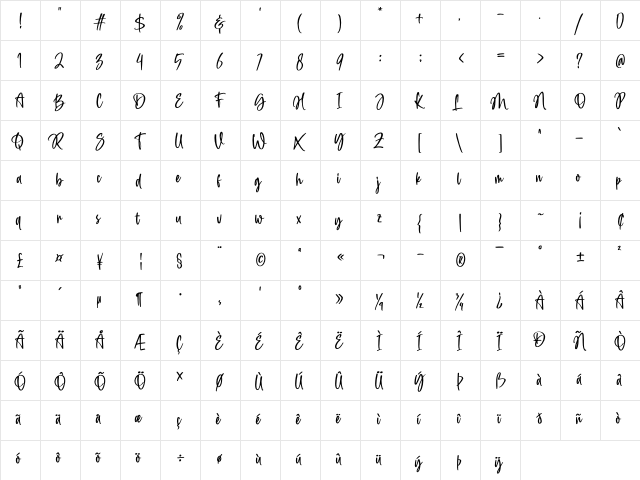
Daisy Girl Regular
Design Context for Daisy Girl Typeface
Daisy Girl is a composed and adaptable typeface that performs quietly and consistently across a wide range of design contexts.
Pro Tip: Use Daisy Girl in both headline and body roles to test its range before committing to a single application.